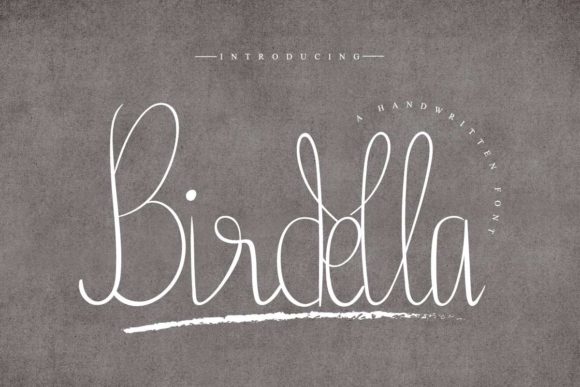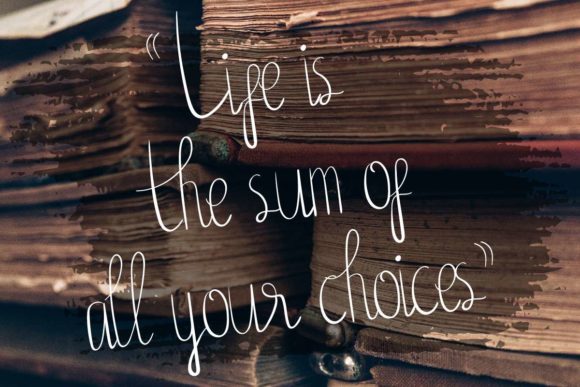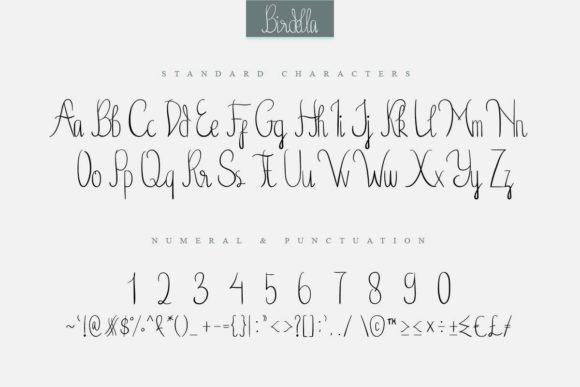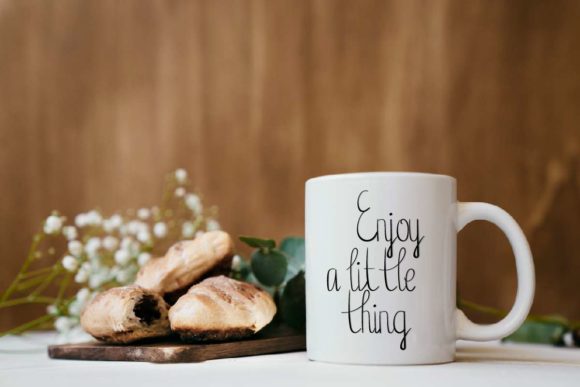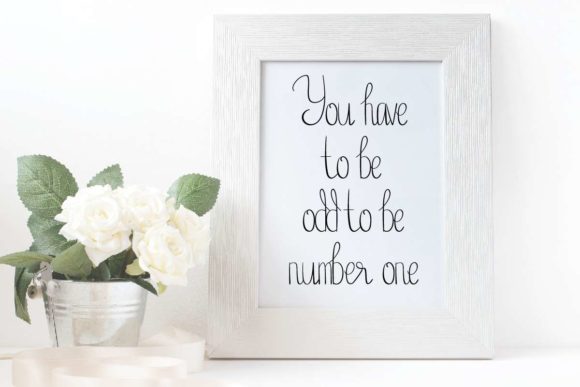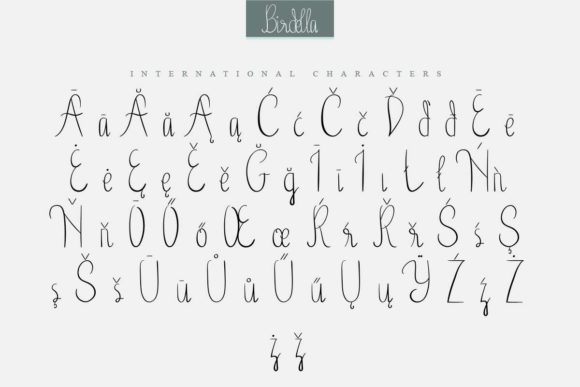
The Magic of Birdella Font
Have you ever stared at a blank canvas, waiting for inspiration to strike? For designers, this moment can be both thrilling and daunting. But what if we told you that the perfect spark can come in the form of a single, elegant font?
Meet Birdella Font, a magical script font that combines timeless elegance with authentic calligraphy. This beautiful font is designed to transport you to a world of sophistication and refinement, making it the perfect addition to any design project. Whether you’re creating a wedding invitation, a branding package, or a marketing campaign, Birdella Font is sure to make your designs stand out from the crowd.
As a designer, you know that the right font can make all the difference. That’s why we’re excited to introduce you to Birdella Font, a valuable tool that will help you create original and outstanding designs that leave a lasting impression.
Birdella Font Key Features
- Font Family: Birdella
- Unique Characteristics: Birdella features a unique blend of elegant and whimsical design elements, with intricate details and subtle flourishes, making it ideal for creative projects and branding
Birdella Font Review
I’ve had the chance to work with the Birdella font, and here’s my honest take on it.
- Unique and quirky charm: Birdella has a distinct personality that can add a touch of whimsy to any design project.
- Wide range of applications: From posters to menus, this font is versatile and can be used in various contexts.
- High-quality rasterization: The font renders well in digital formats, making it suitable for both web and print use.
- Limited legibility in small sizes: While Birdella is charming, it can become difficult to read when scaled down to very small sizes.
- Not ideal for long blocks of text: The font’s irregularities can make it challenging to read large bodies of text.
Birdella is a fun and eclectic font that can add a unique touch to your designs. However, it may not be the best choice for projects that require high legibility or long blocks of text. I’d recommend using it for headlines, titles, or short phrases where its charm can shine through.
Tips for Getting the Most Out of Birdella Font
Use Birdella Font to add a touch of elegance and sophistication to your designs. Experiment with different font sizes and styles to create visual interest. Combine Birdella Font with other fonts to create a unique and eye-catching design.
Birdella Font is perfect for use in wedding invitations, formal event invitations, and luxury branding. Its elegant and sophisticated design makes it ideal for high-end designs.